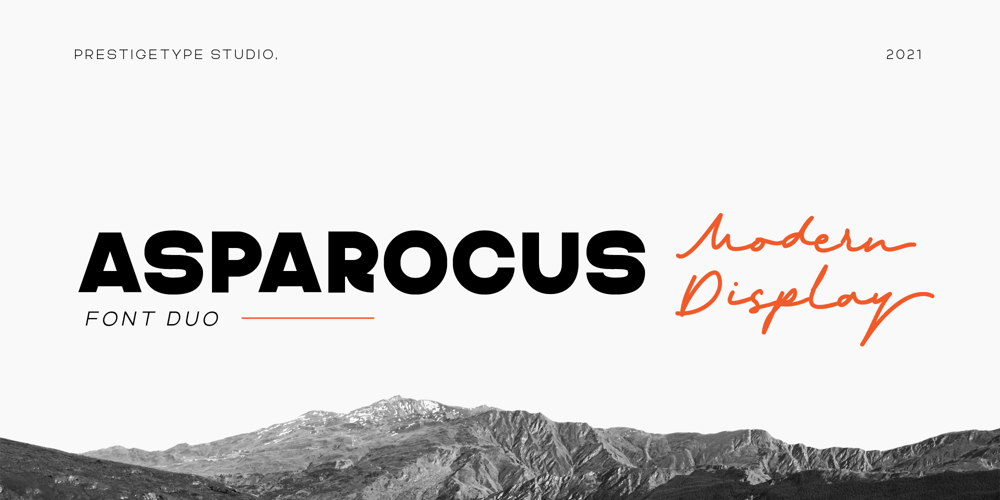
Asparocus
Asparocus font
Asparocus Font Family was designed by Mohamad Ridwan and published by Prestigetype Studio. Asparocus contains 18 styles and family package options. Asparocus is a modern and clean font duo that includes all caps sans serif and script font style. Sans serif style comes in 16 weights with italics + variable fonts.Designed with a modern minimalist mind, Asparocus is suited for display, advertising, web design, headline, branding, logo, text, business card, and many editorial design purposes.What you will get: All caps sans serif and script font style Numbers and punctuation Multilingual Ligatures Alternates Opentype features Future Updates Available We highly recommend using a program that supports OpenType features and Glyphs panels like many Adobe apps and Corel Draw so you can see and access all Glyph variations.We hope you enjoy our font – please do let us know by emailing us at info@prestigetype.com or prestigetypestudio@gmail.com if you need something!